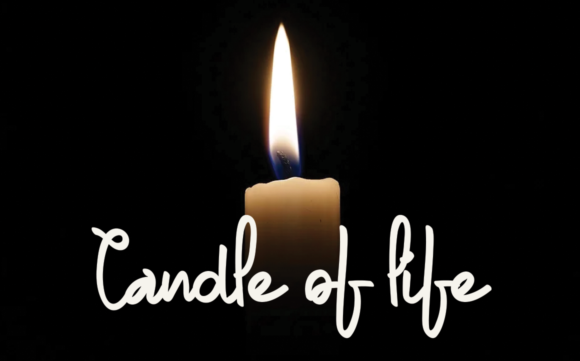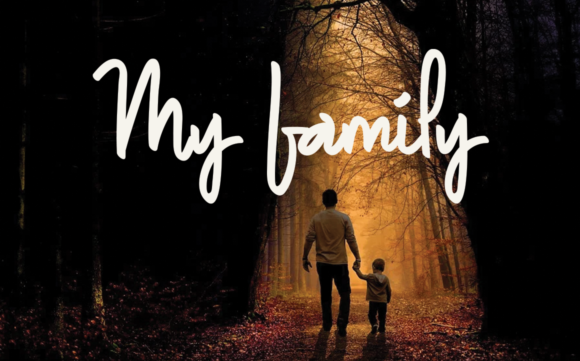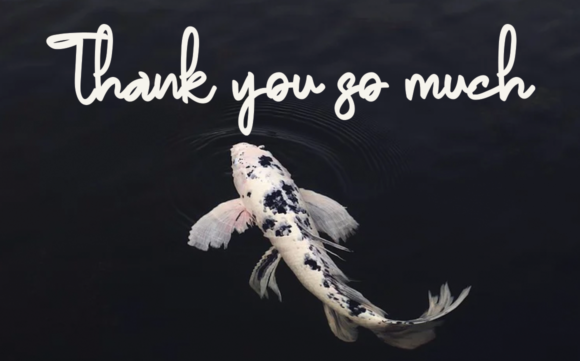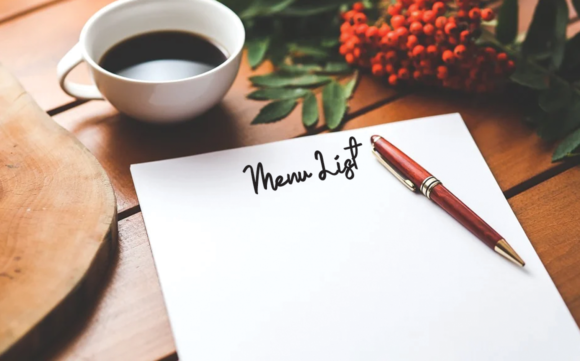
4th of July is Coming Font
About 4th of July is Coming Font
4th of July is Coming is a chic and versatile script font. This font was particularly crafted for those who need a beautiful and refreshing look to their designs.